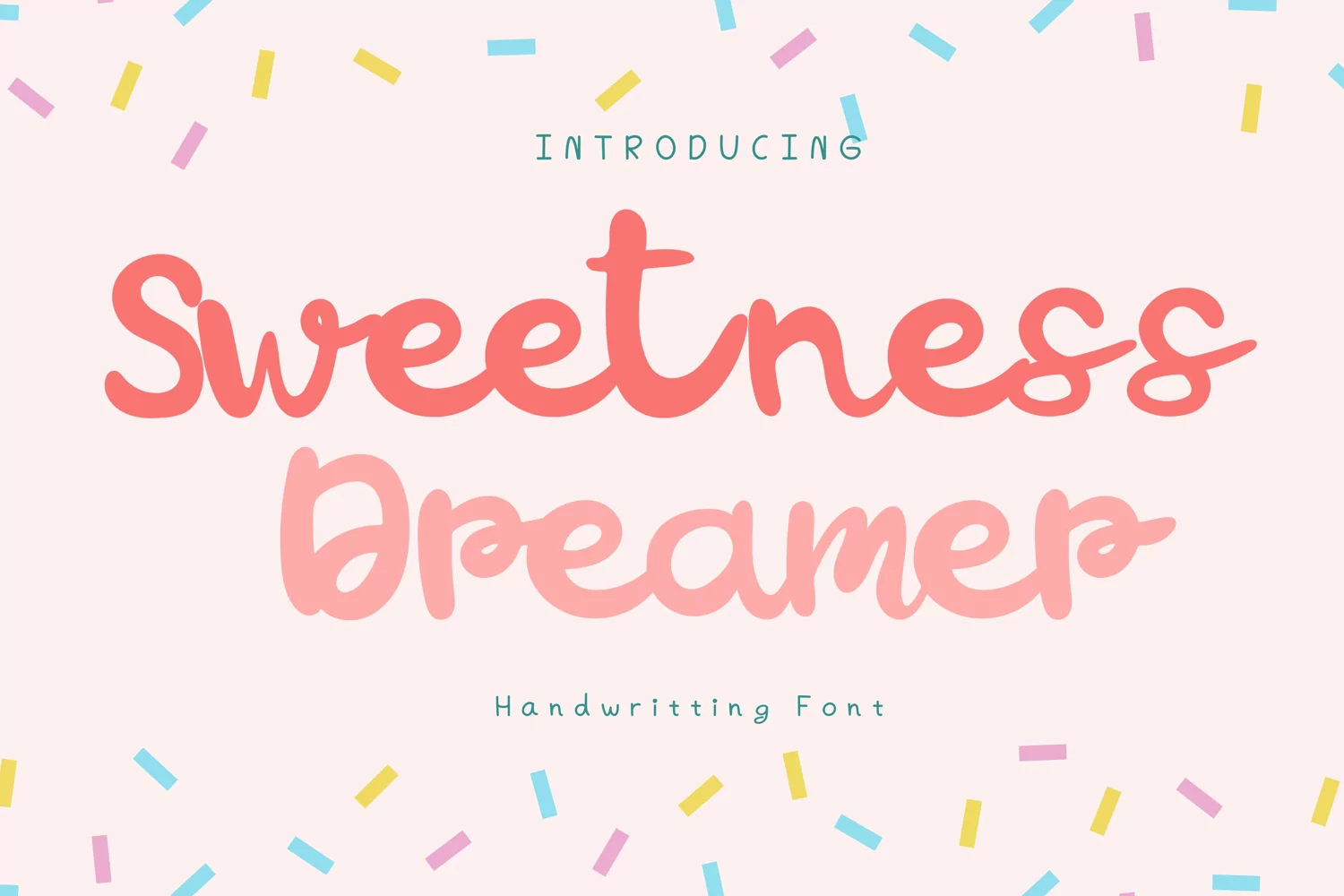
Sweetness Dreamer Style
SweetnessDreamer
Sweetness Dreamer Style is a whimsical and clean handwritten font. It can easily be matched to an incredibly large set of projects, so add it to your creative ideas and notice how it makes them stand out!